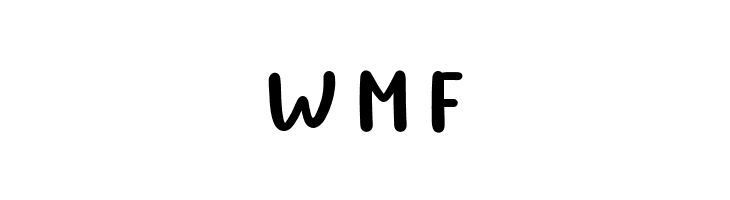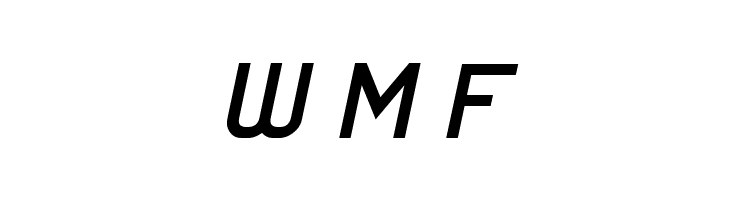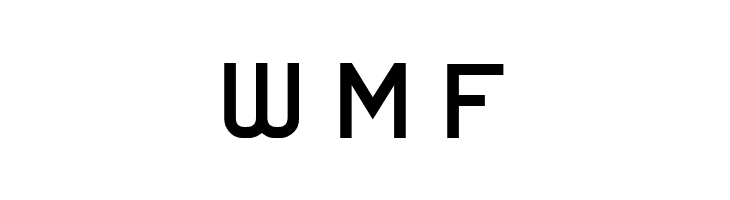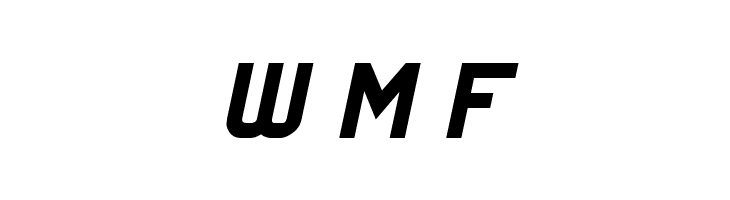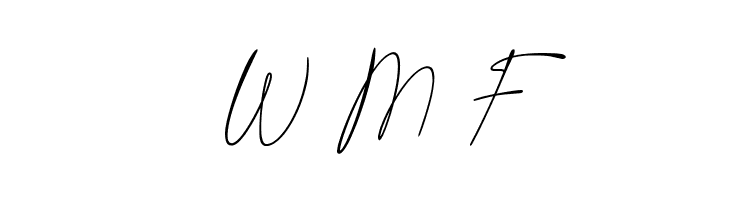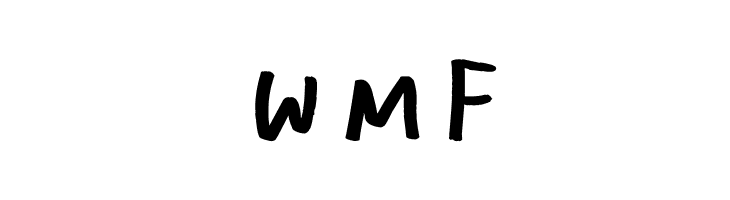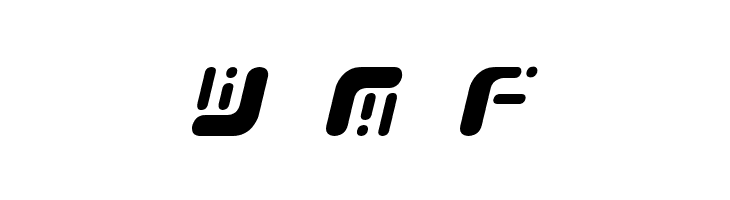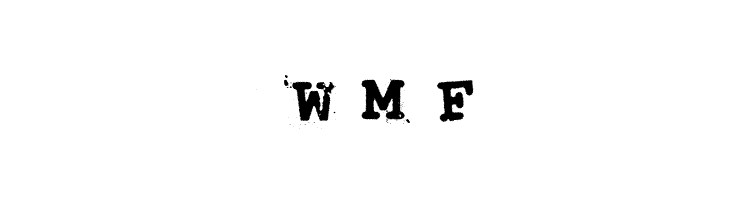
A bold, high-contrast serif font with strong, authoritative strokes.
A bold, dripping decorative font with a horror or blood theme.
A playful, bold handwritten font with a lively and energetic style.
A bold, condensed serif font with high contrast and elegant curves.
A classic serif font with high contrast and elegant, narrow characters.
A classic serif font with elegant, elongated letterforms and high contrast.
An elegant script font with flowing, interconnected letters and a modern calligraphic style.
A graceful and elegant script font with flowing, cursive characters.
A graceful script font with fluid, cursive strokes and decorative uppercase letters.
A bold, modern sans-serif font with excellent readability and balance.
A bold, modern sans-serif font with excellent readability and a professional appearance.
A bold, italicized font with a modern and dynamic style.
A bold, modern sans-serif typeface with clean lines and excellent readability.
A bold, italic sans-serif font with a modern and dynamic style.
A bold, modern sans-serif font with a clean and confident appearance.
A modern, bold, and italicized font with a clean and dynamic style.
A clean, modern sans-serif font with an extra light weight and sleek design.
A sleek, extra-light, italic sans-serif font with a modern and elegant style.
A sleek, minimalistic font with thin strokes and a modern, elegant appearance.
A sleek, modern hairline italic font with elegant and fluid characteristics.
A sleek, hairline italic font with elegant and modern characteristics.
A bold, modern sans-serif font with excellent readability and versatility.
A bold, italicized typeface with strong strokes and modern appeal.
A modern, italicized sans-serif font with clean lines and excellent readability.
A modern, light sans-serif font with clean lines and excellent readability.
A sleek, modern, light italic font with smooth curves and balanced spacing.
A modern sans-serif font with balanced proportions and excellent readability.
A modern, thin sans-serif font with clean lines and high legibility.
A modern, thin sans-serif font with a clean and minimalist design.
A sleek, thin, and italicized font with a modern and elegant design.